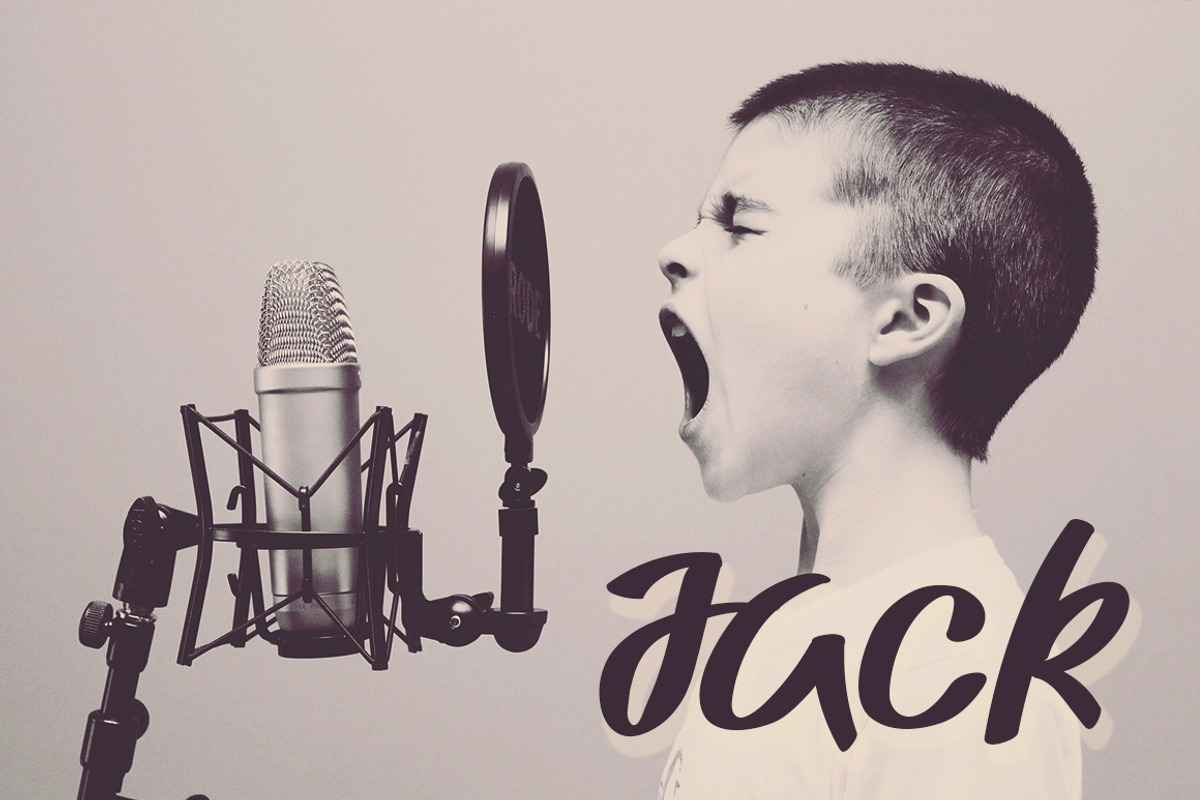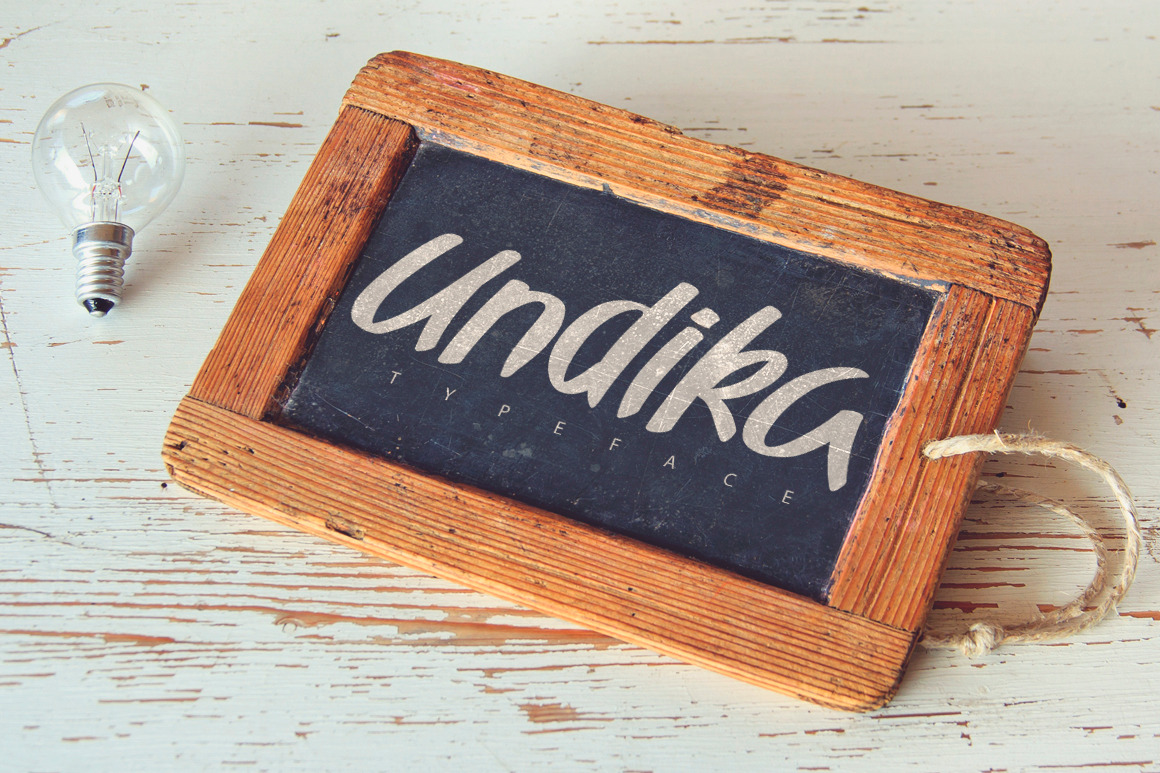
Undika Typeface
Undika is a roundhand handmade font perfect for your invitations, titles, logos or templates. All punctuations, extensions, lowercase and uppercase, numbers and webfont.